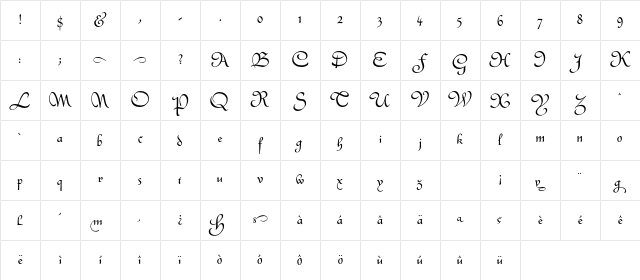
Civitype Regular Free Font
Civitype Regular
Design Context for Civitype
Civitype is a composed and adaptable typeface that performs quietly and consistently across a wide range of design contexts.